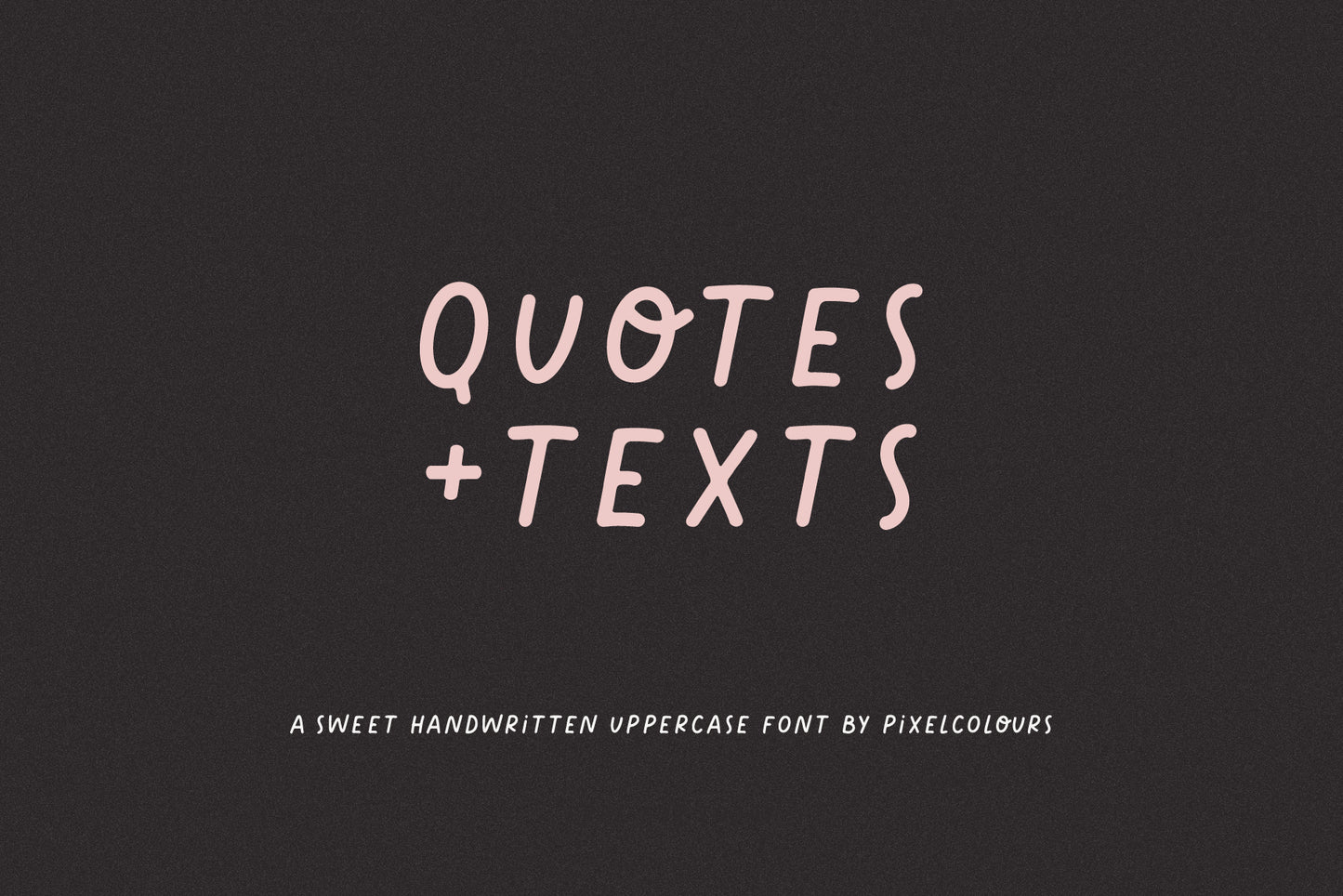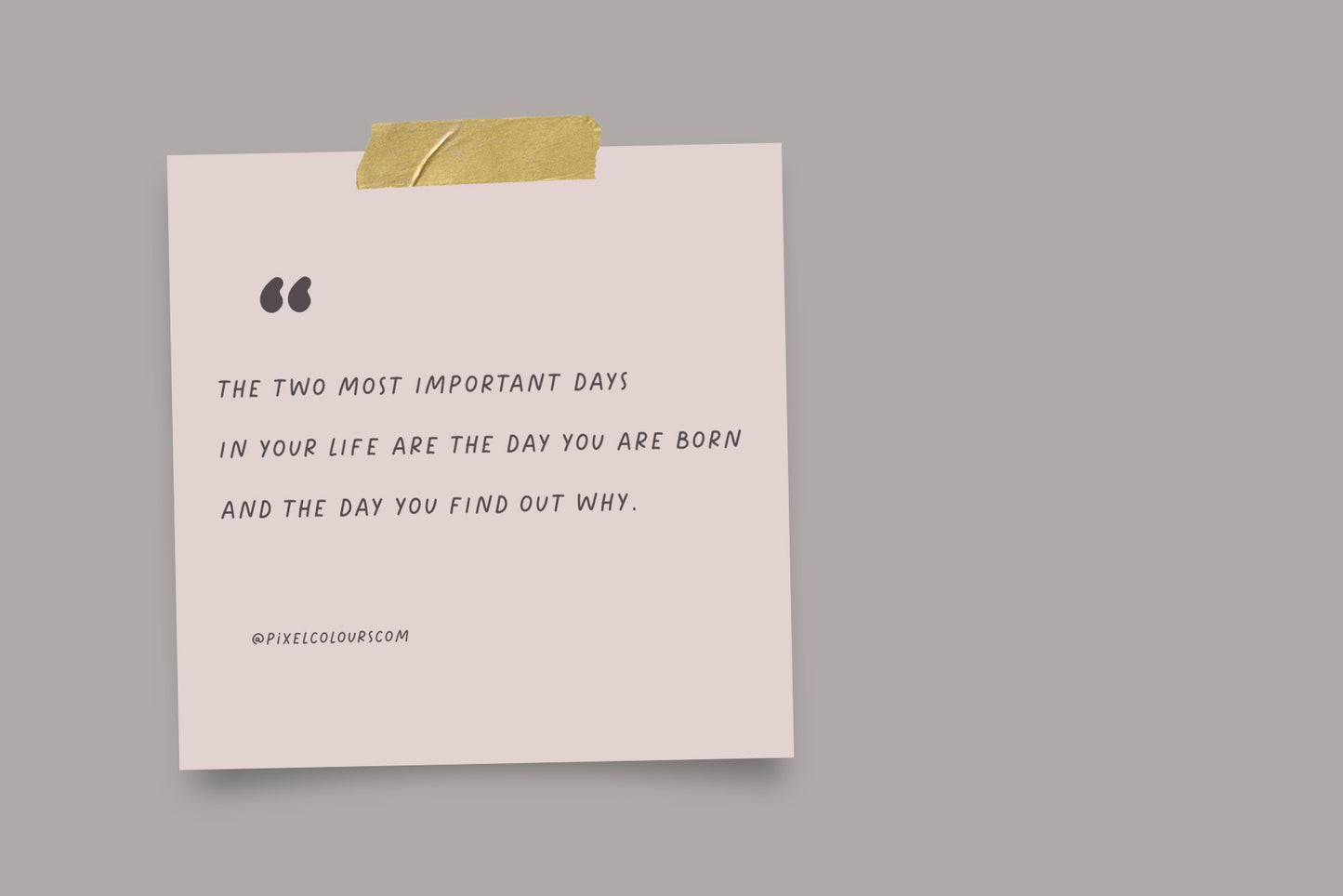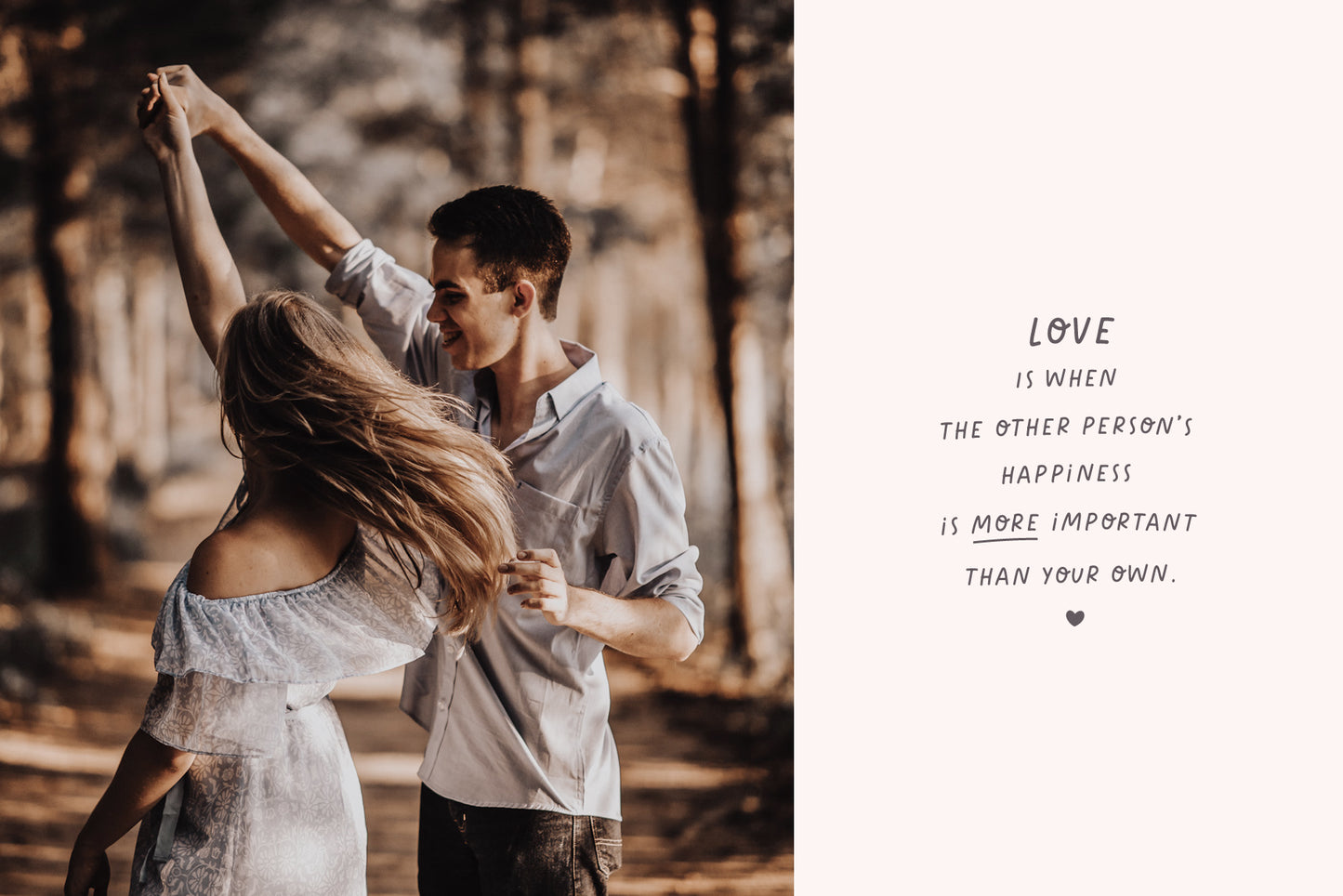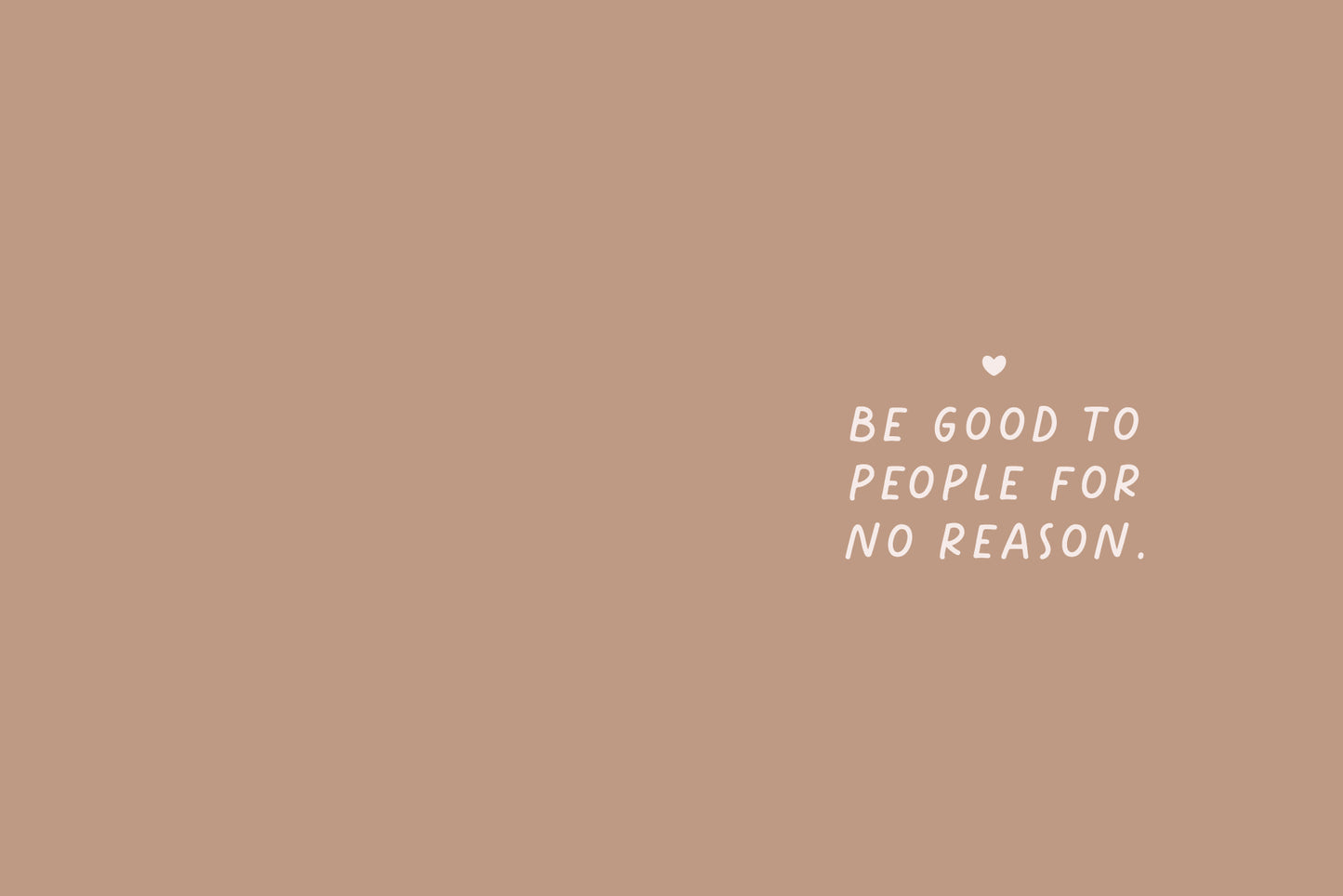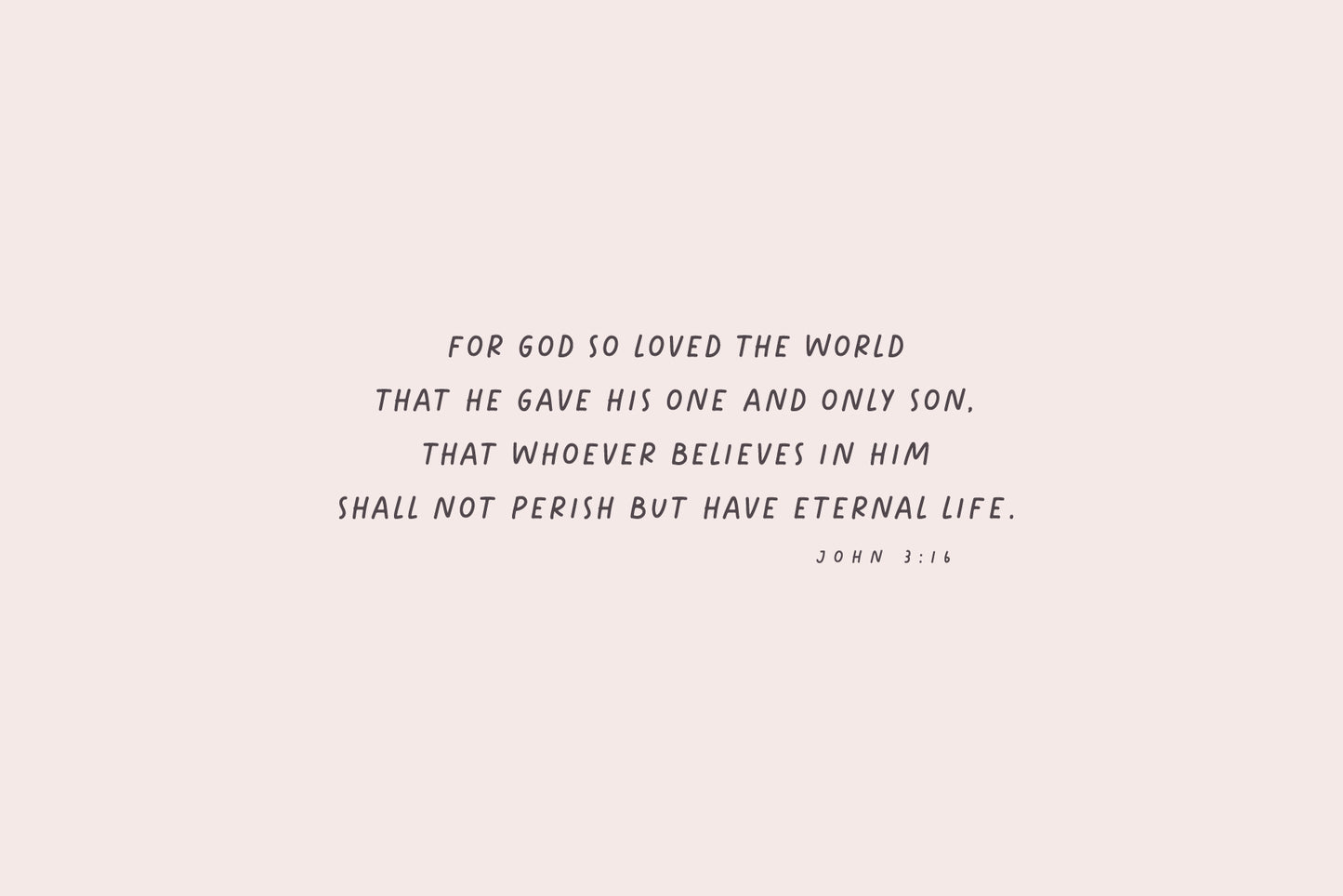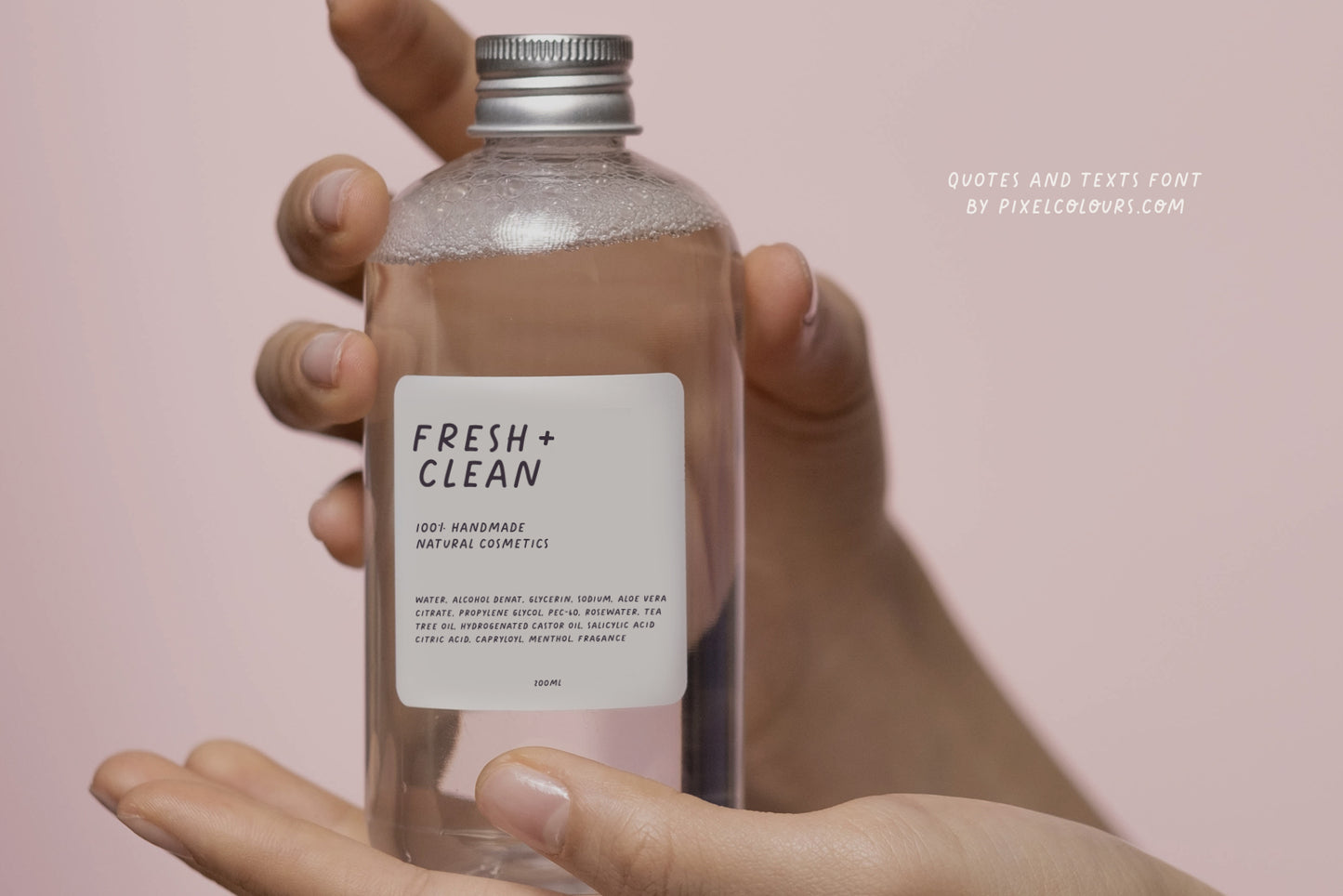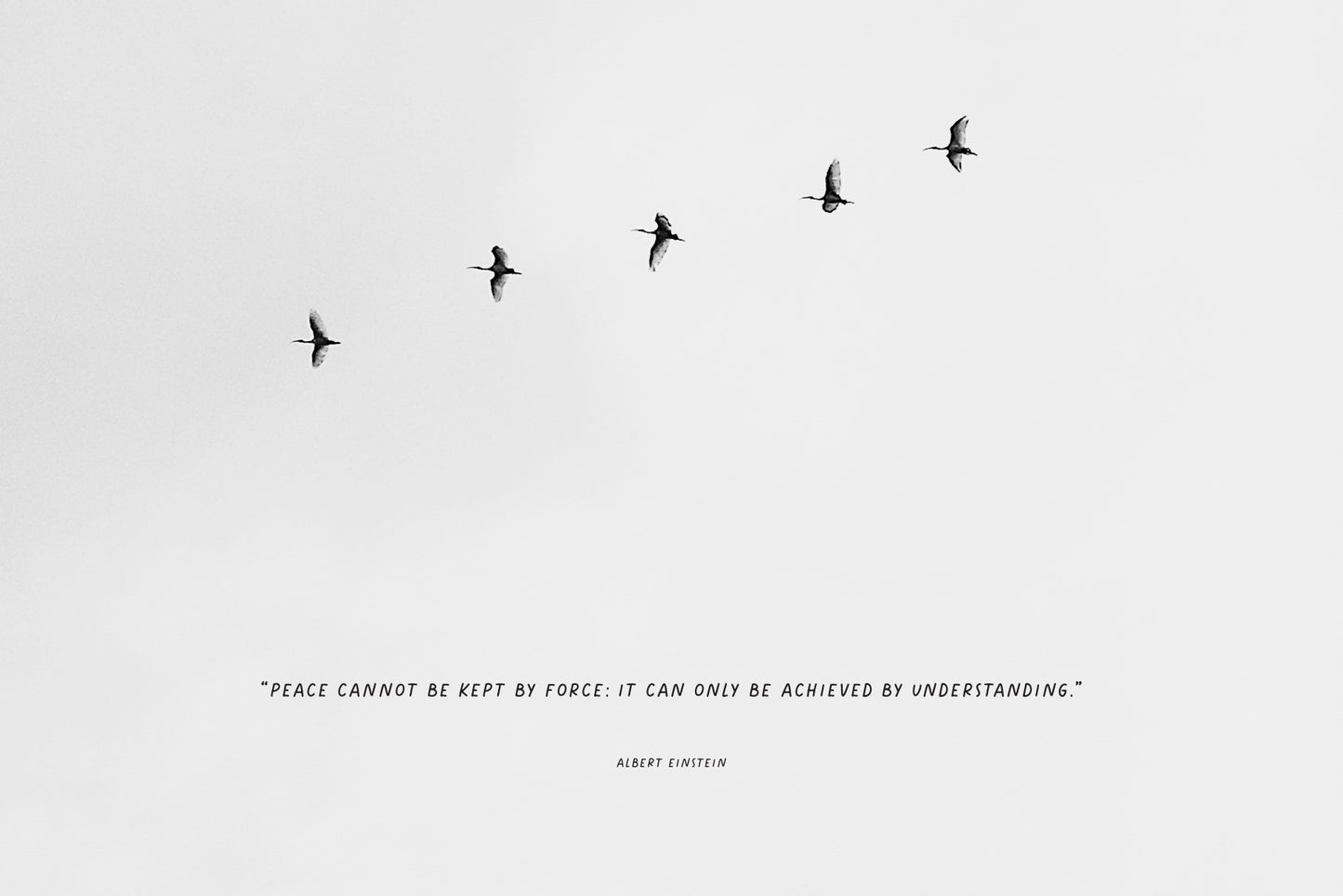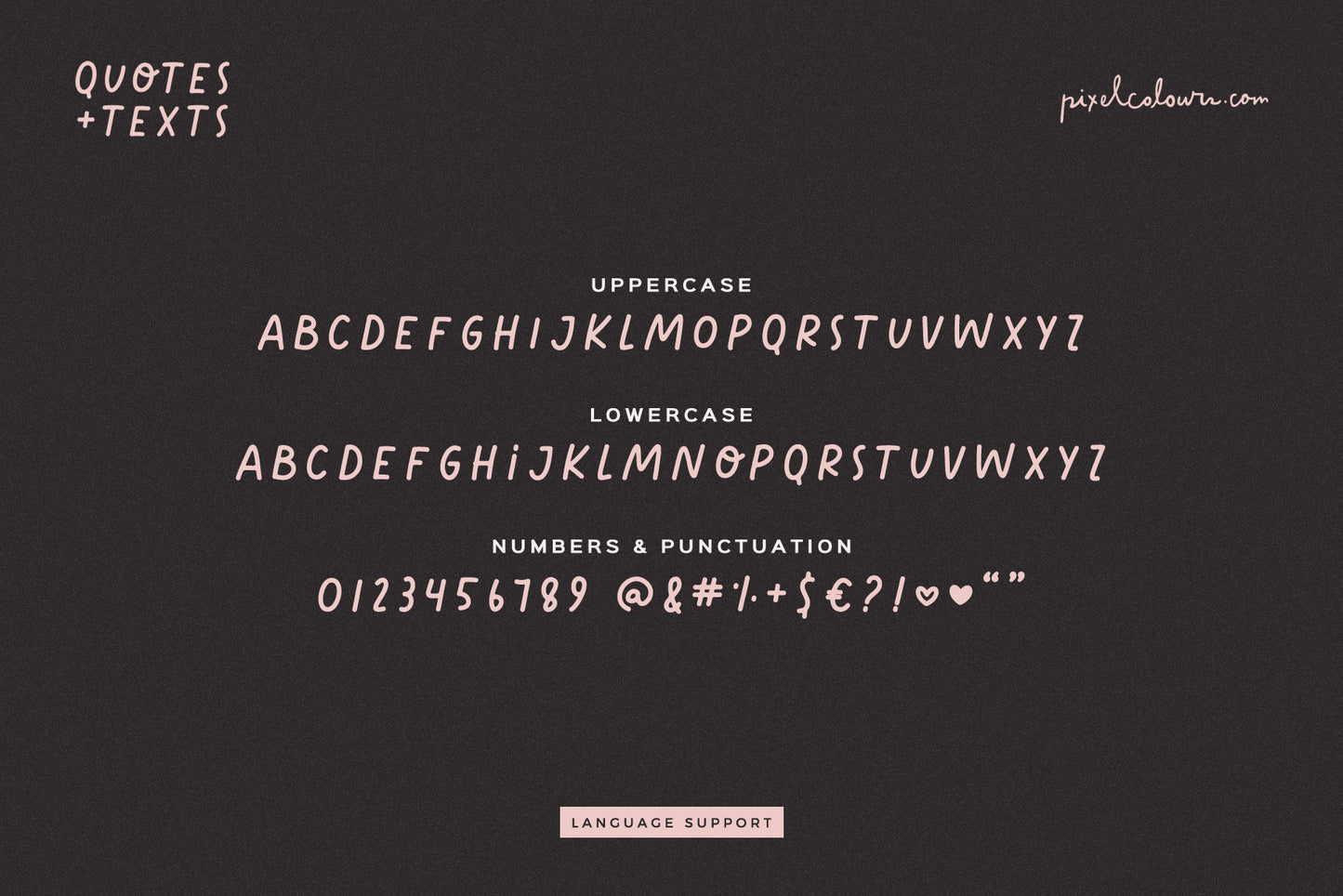
Quotes and Texts Font
Quotes and Text is sweet handwritten uppercase font designed to look clear and chic in small formats like texts, quotes, and social media posts.